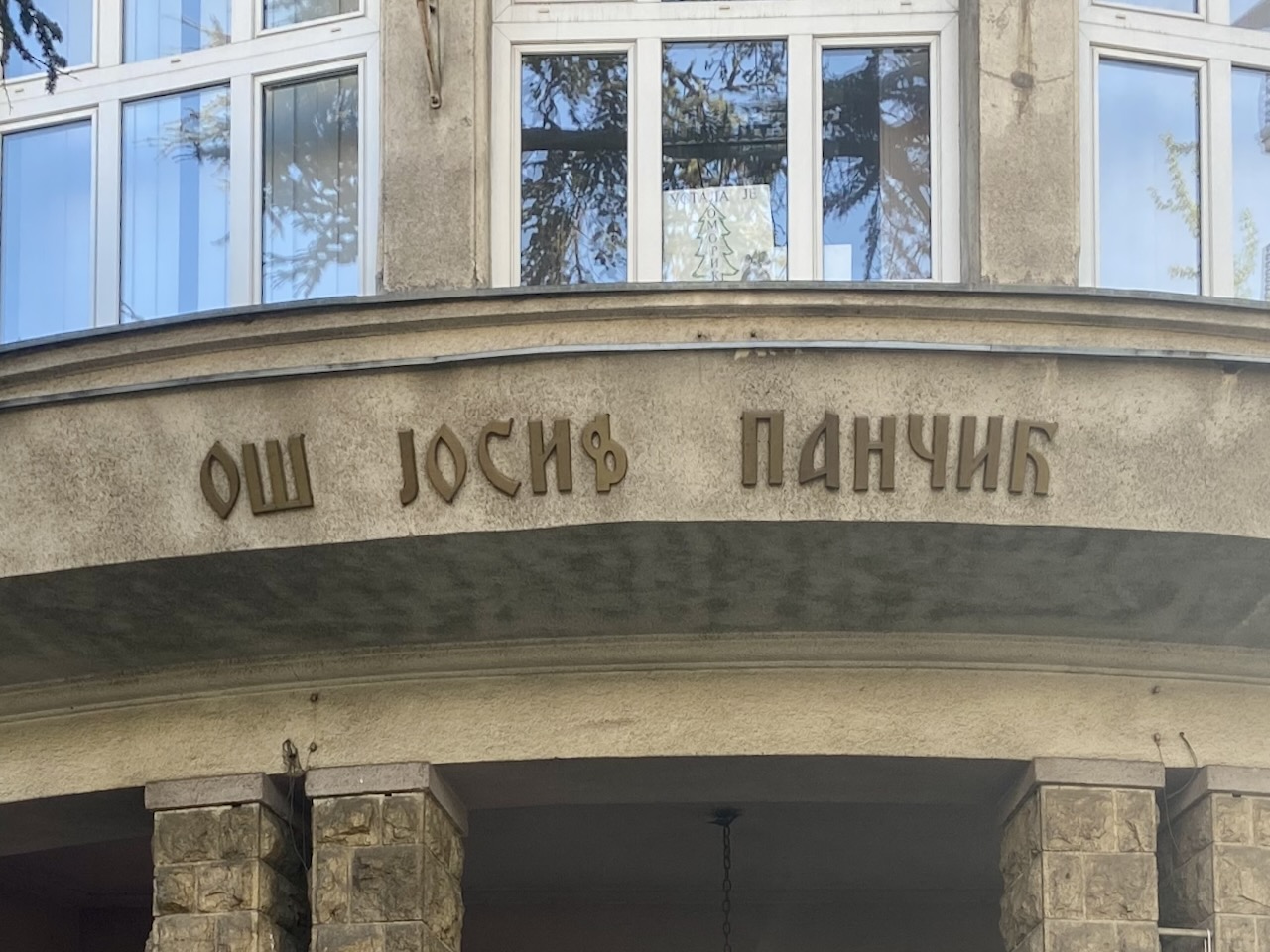
Josif Pančić School
Facade sign of the general school named after Josif Pančić, a Serbian botanist and doctor of medicine. Quite remarkable shape of Ф in 'Joсиф'.